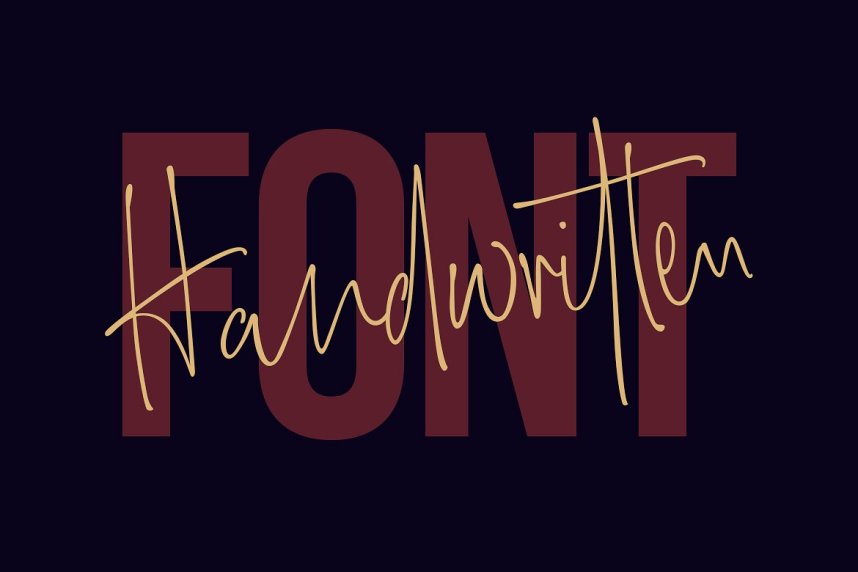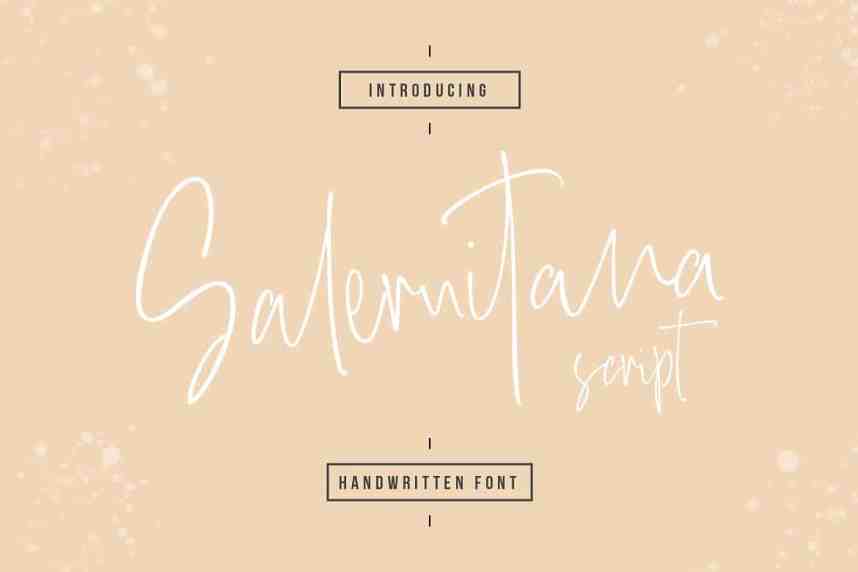
Salernitana Script Font
Hello Everyone! Salernitana Font is a contemporary sophisticated stylish font. With so many options you can easily give your texts the organic handwritten look – no repeating letters! Salernitana – The style of handwriting and irregular but still elegant, and you will enjoy to use this font style. Salernitana Script is perfect for branding projects, homeware designs, product packaging – or simply as a stylish text overlay to any background image.